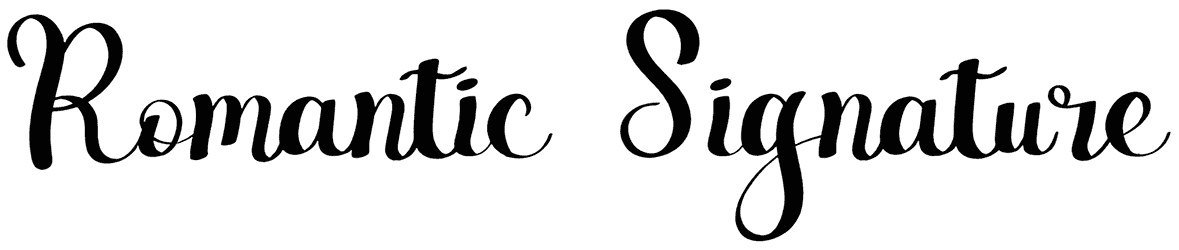
Romantic Signature Font
Give your words an intimate feeling with a soft and beautiful mood and create romantic designs. This curved, romantic font consists of natural characters with a classic vibe. Give it a try and set Romantic Signature on your future designs, like postcards, invitations, branding, or so forth, and give them an appealing vibe.